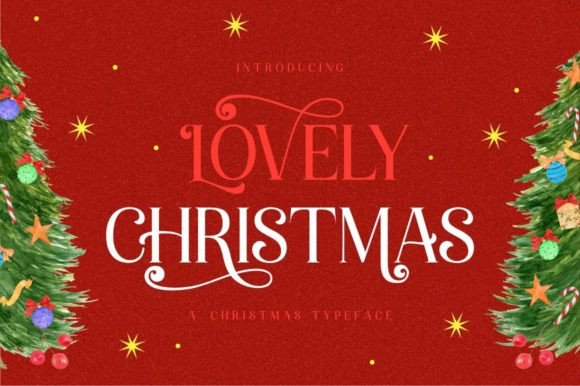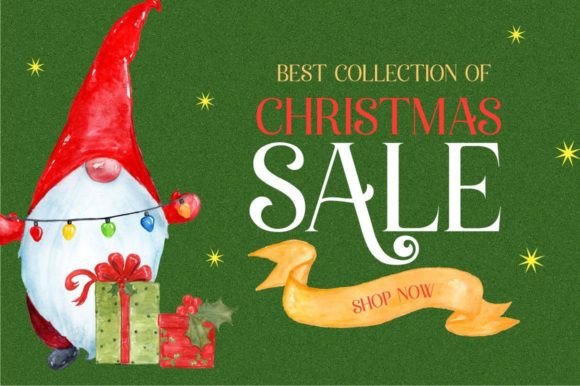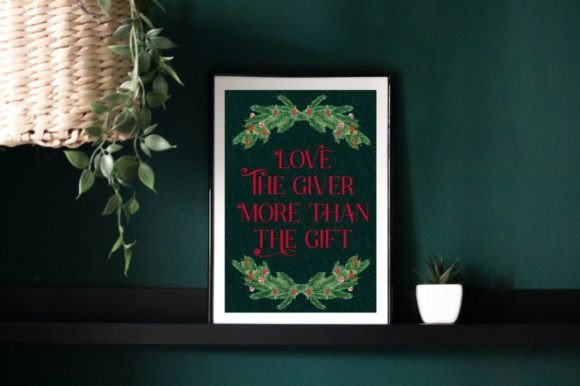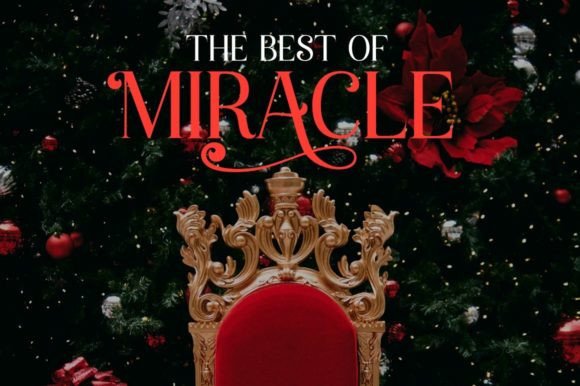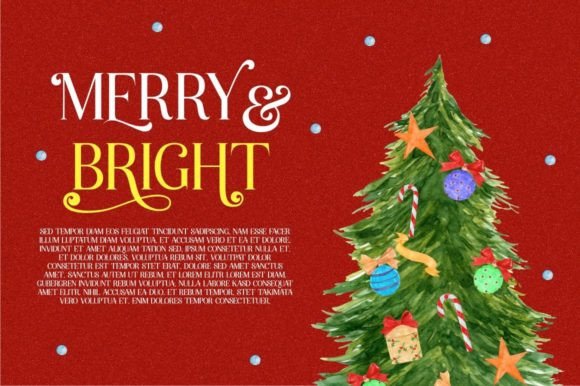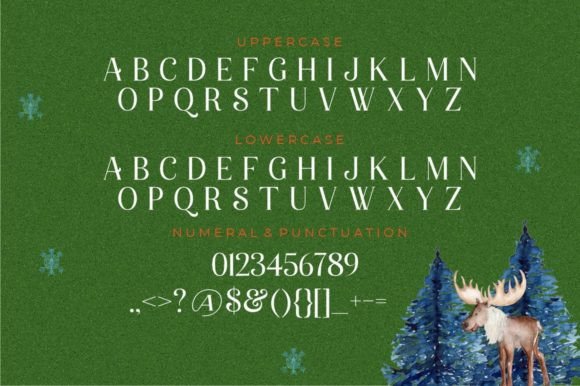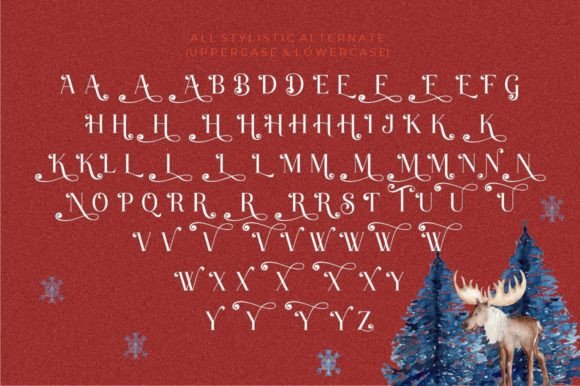
Lovely Christmas Font
Lovely Christmas is a stylish and elegant serif font. Its festive, smooth, and luxurious characters are perfect for creating stunning designs. Add it confidently to your projects and you will be amazed by the generated outcome! This font is PUA encoded which means you can access all the glyphs and ligatures with ease!